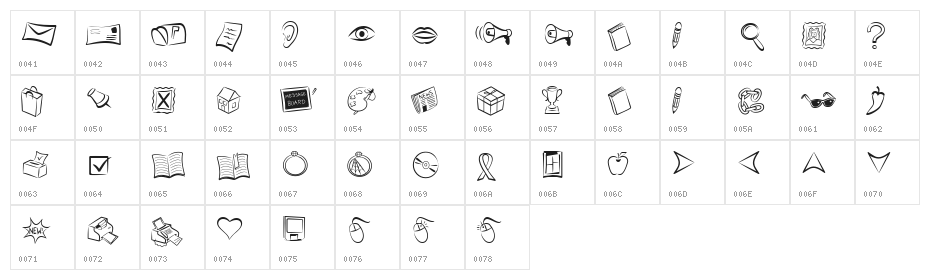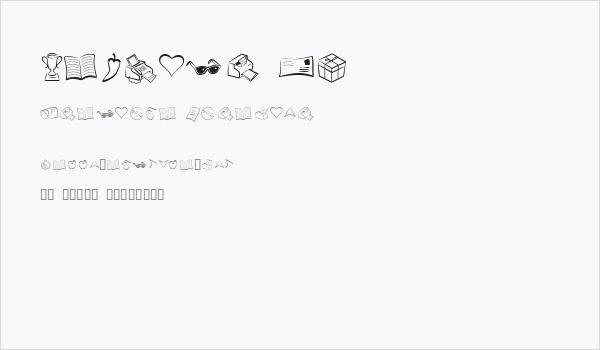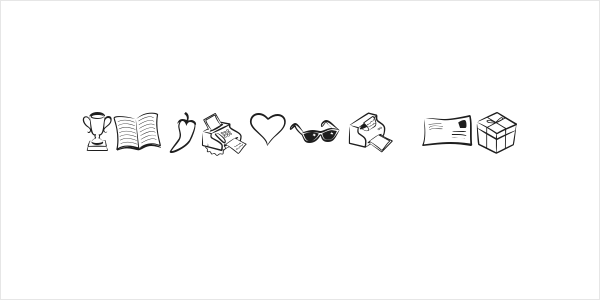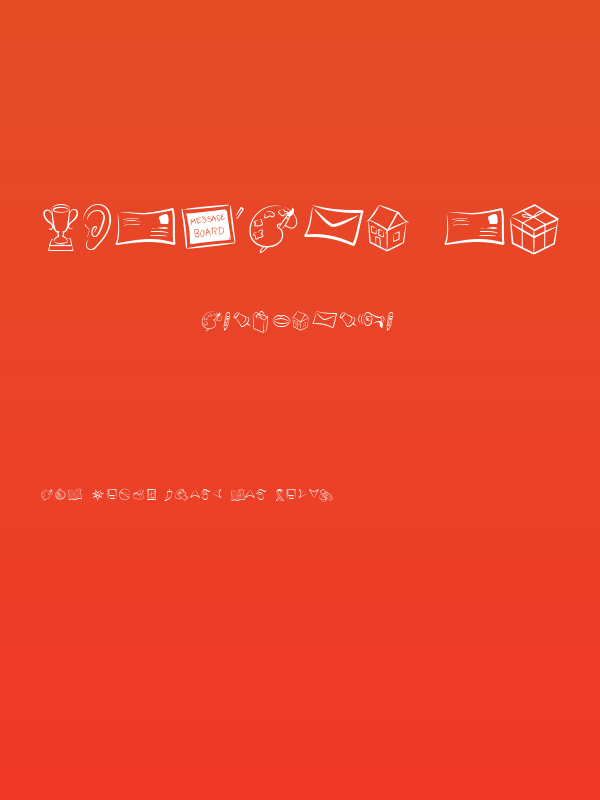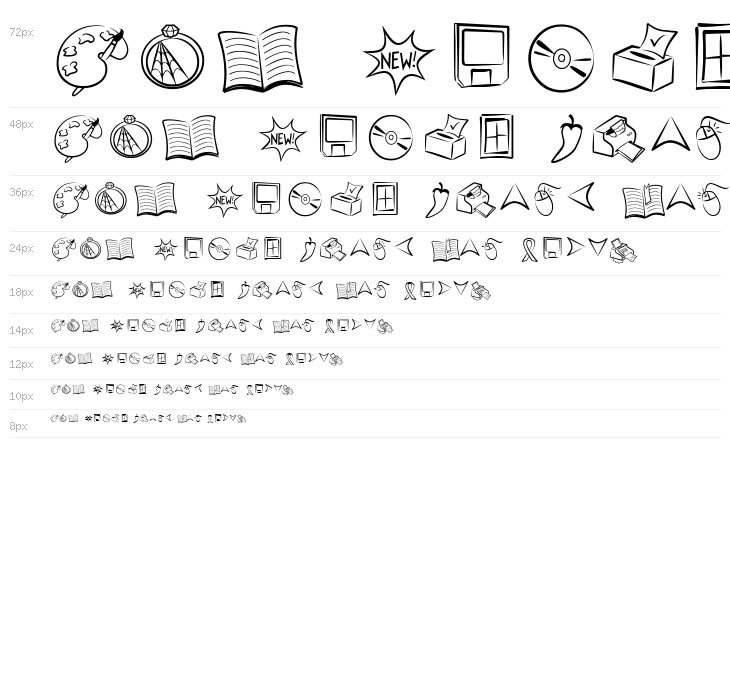
Webstar BV Font
Webstar BV Description
A playful dingbat font featuring a variety of hand-drawn icons such as envelopes, books, eyes, megaphones, trophies, and other miscellaneous symbols. The icons have a casual, sketch-like appearance with varying line thickness and whimsical details.
| Overall Style | Decorative, Playful, Hand-drawn |
| Use Case | Icons, Decorative elements, Infographics |
| Proposed Projects | Web graphics, educational materials, infographics, playful branding, childrenΓ’β¬β’s books, decorative headings. |